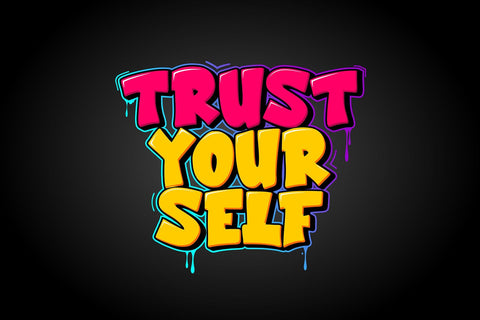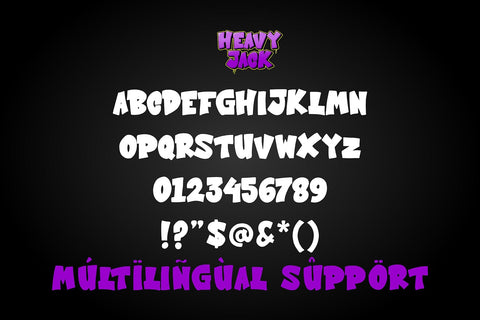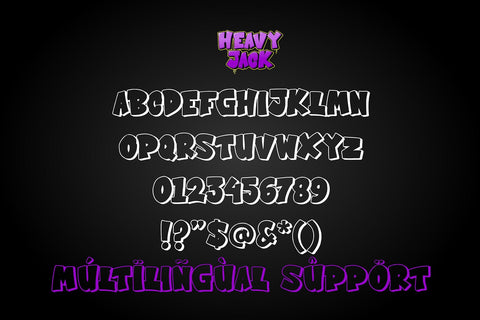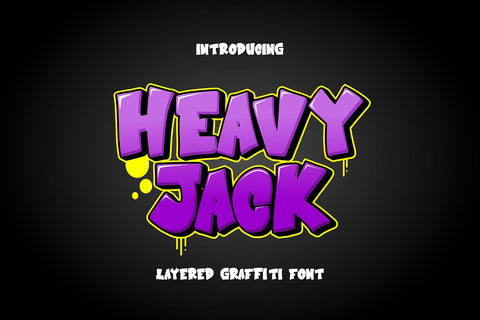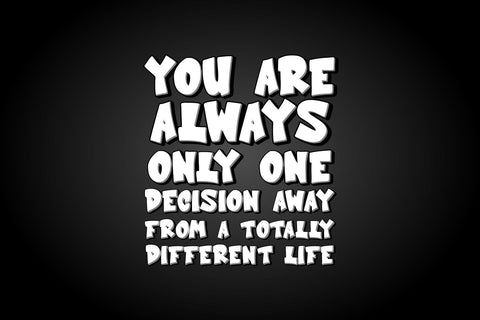
Heavy Jack – Urban Graffiti Layered Font
Heavy Jack is a bold graffiti display font with a multi-layer system that includes Solid and Shadow. Designed for urban-themed projects, this font fits streetwear branding, gaming posters, music visuals, and youth content. It's street-ready, fun, and full of character!